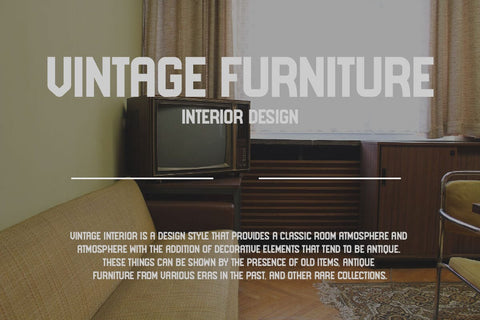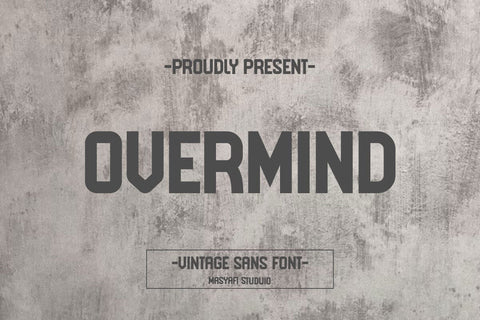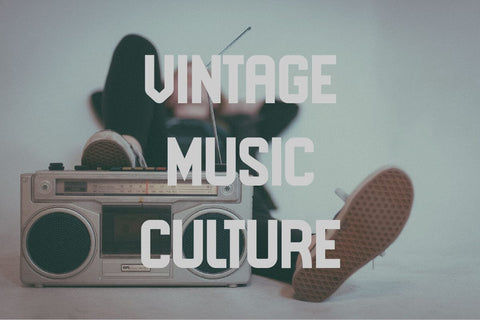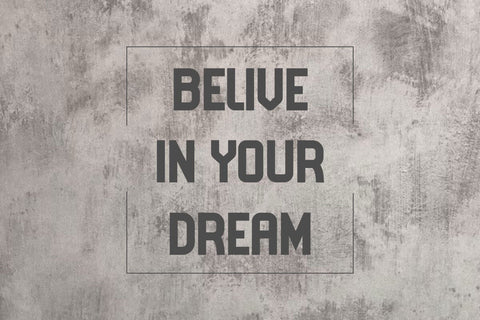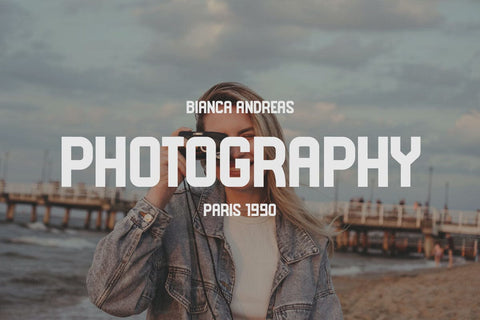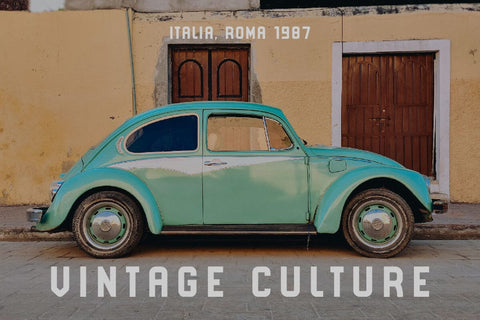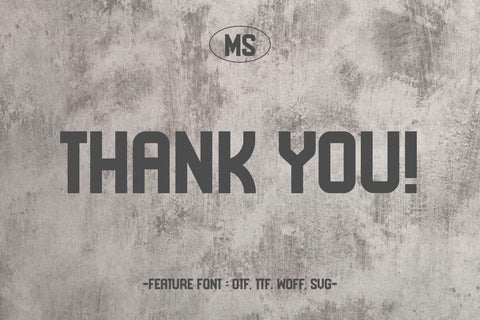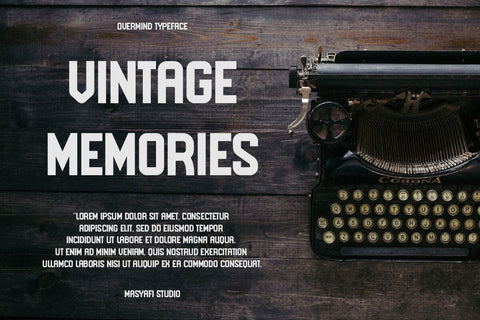
Overmind - Sans Serif Font
Hi, Introducing Overmind - Sans Serif Font
A sans serif font with a vintage, masculine style. This font is cool for quotes, headlines, overlays etc.